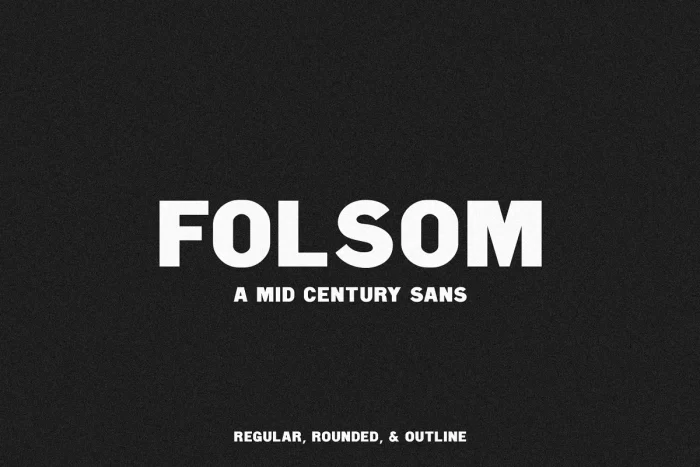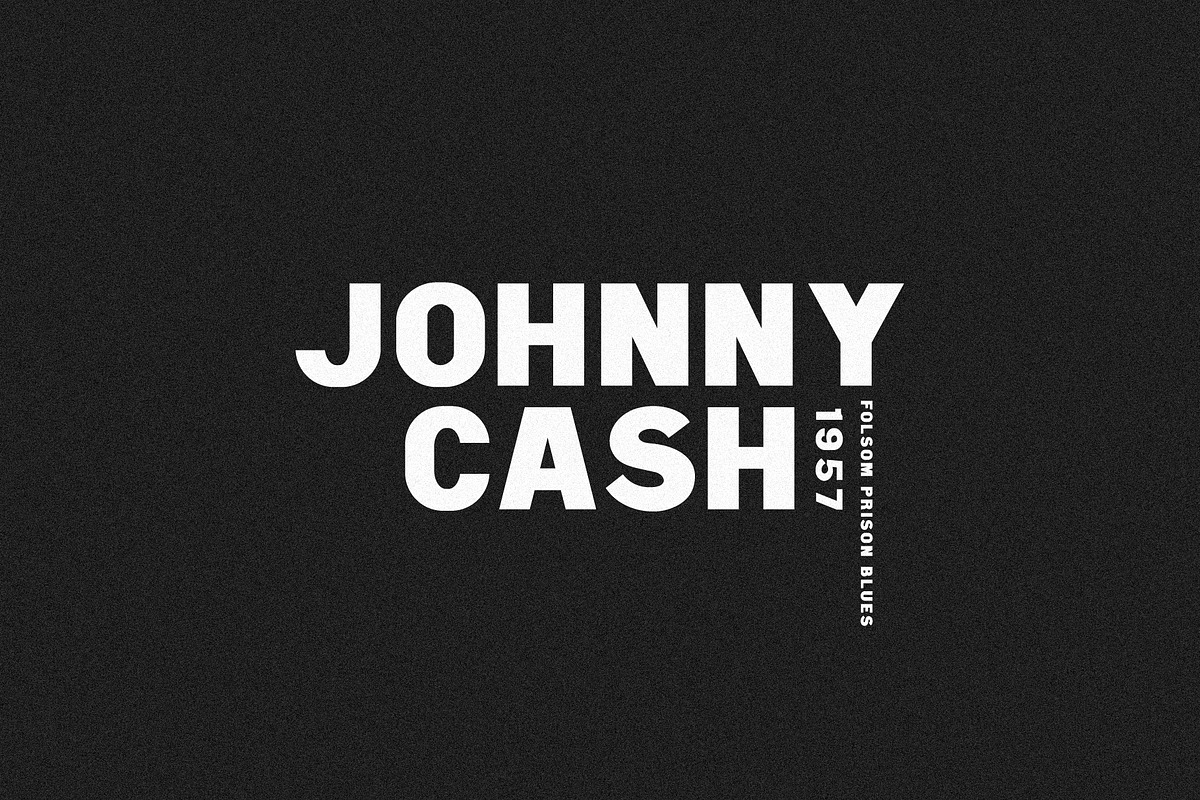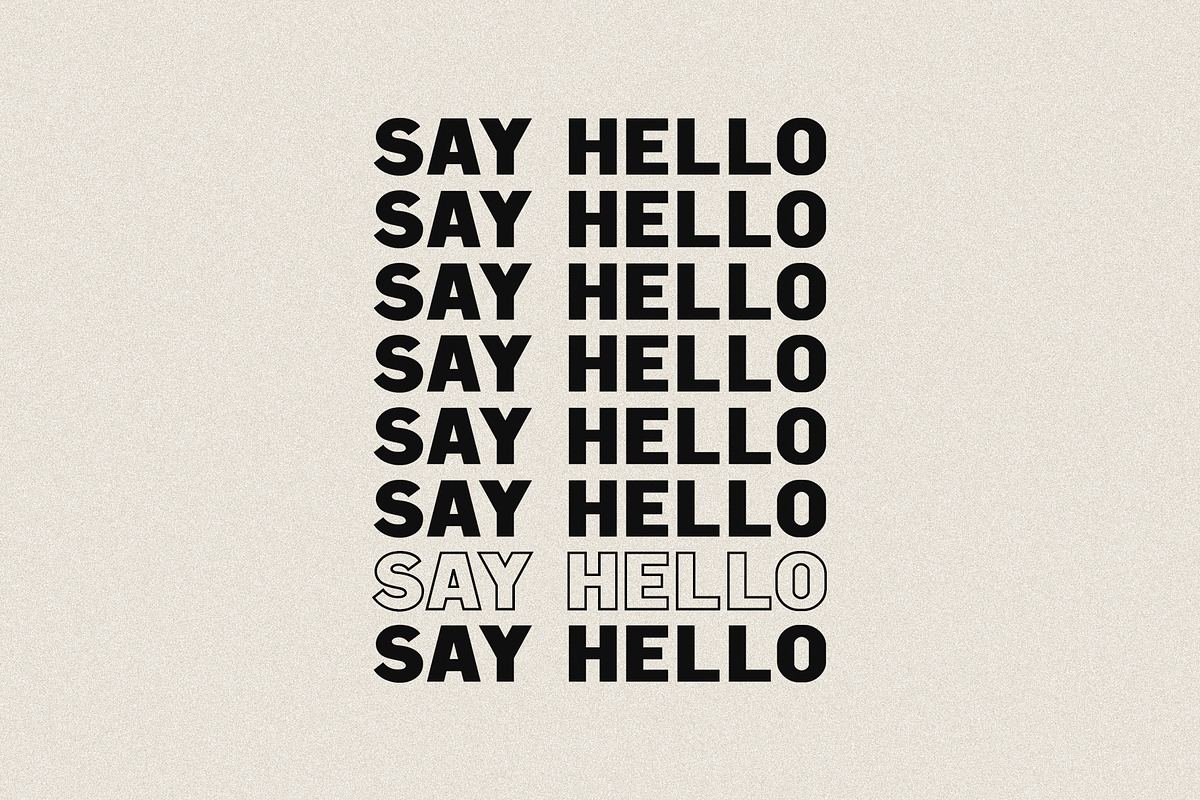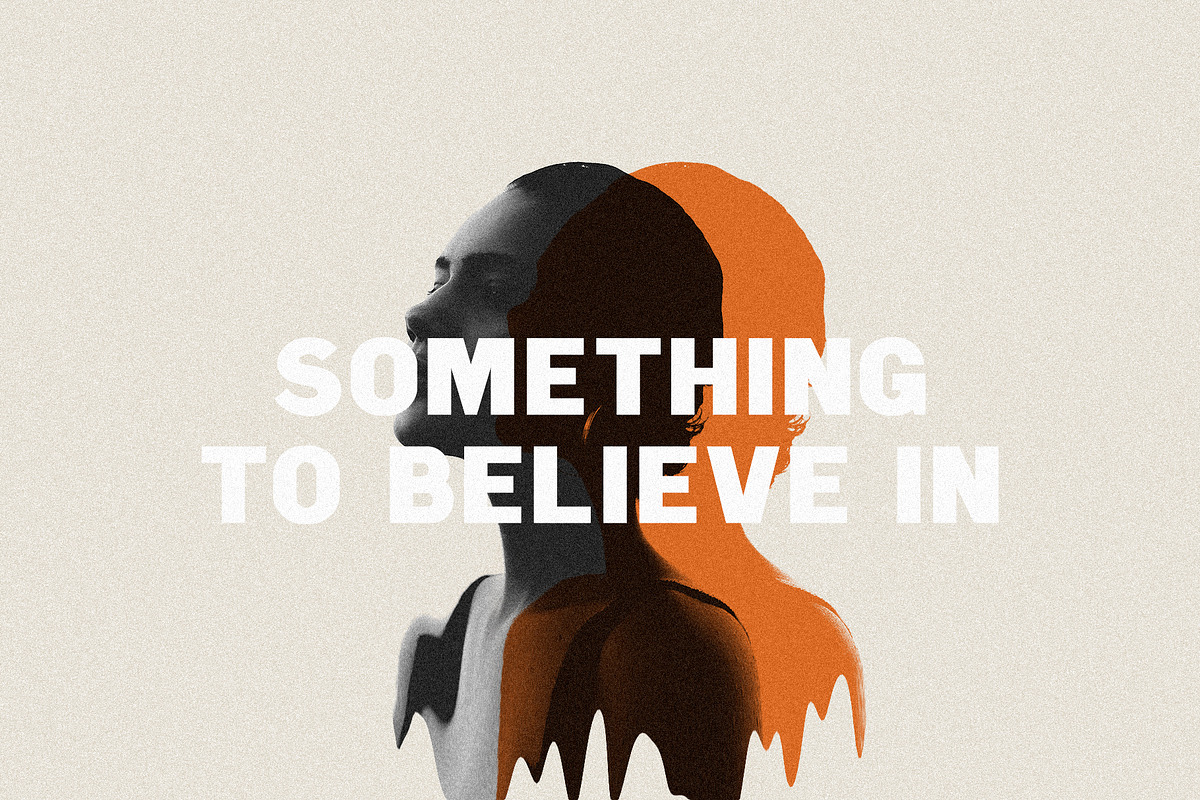
Folsom is a mid-century sans serif that was inspired by old Johnny Cash show posters! With strong lines and three styles (regular, rounded, and outline), Folsom is a great all-caps sans for logos, posters, album covers, and website headers. I’ve really enjoyed using it for vintage-inspired styles, but it looks beautiful in modern contexts too!
- Uppercase letters, numbers, + punctuation